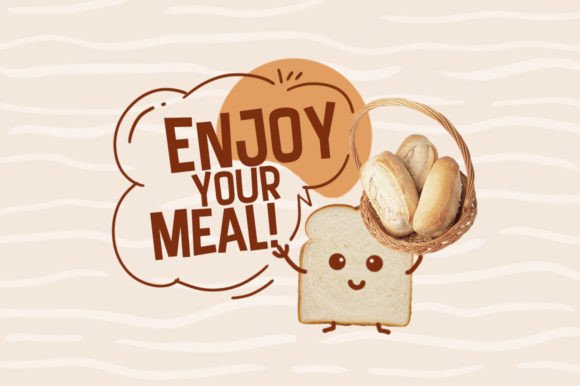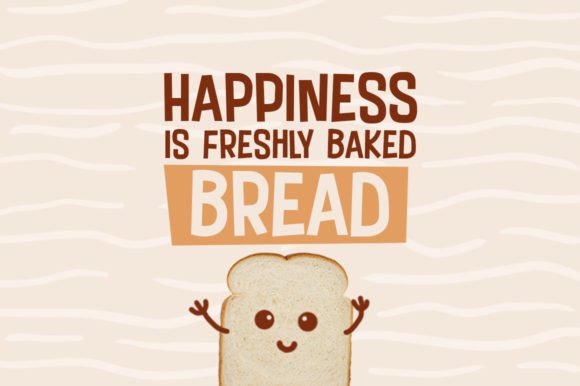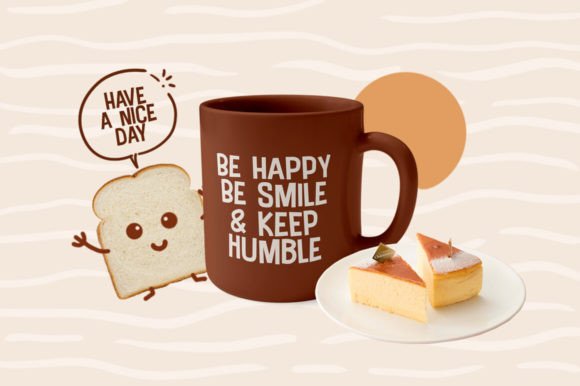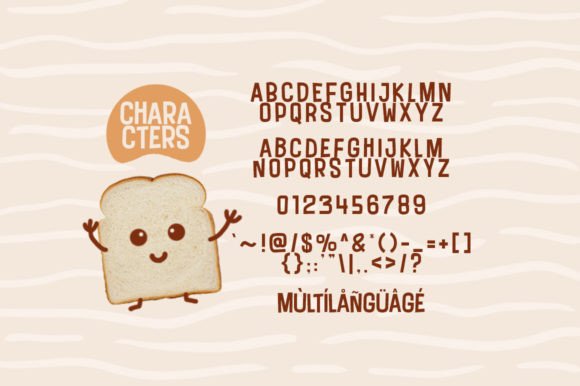
The Perfect Slice of Creativity: Introducing Bread Mate Font
Remember that moment when you’re brainstorming ideas for your next design project, and you just can’t seem to find the right font to tie everything together? It’s like searching for the perfect topping for your favorite sandwich – you know it’s out there, but you’re not quite sure what it is yet.
Well, put down the mustard and pick up your design software, because we’ve got the solution you’ve been looking for. Enter the Bread Mate Font, a modern and cute display font that’s perfect for posters, logos, magazines, book covers, banners, and many more! This amazing font is a game-changer for designers, offering endless possibilities for creating lovely designs that stand out from the crowd.
Bread Mate Font Key Features
- Unique Characteristics: Bread Mate Font features a unique blend of modern and rustic elements, making it ideal for creating distinctive and eye-catching designs.
Bread Mate Font Review
As a designer, I was excited to dive into the Bread Mate Font, and here’s my honest review.
- The Bread Mate Font has a unique, modern feel that’s perfect for branding and marketing materials.
- The font is highly legible, even at smaller sizes, making it ideal for digital use.
- The font family includes a range of weights and styles, giving designers plenty of options for customization.
- The font may not be the best choice for formal or traditional designs, as it has a slightly playful tone.
- The font family could benefit from additional language support, as it’s currently limited to Latin-based languages.
- The font’s italic and bold styles can sometimes feel inconsistent, which may require manual adjustment in some cases.
The Bread Mate Font is a solid addition to any designer’s toolkit, offering a unique and modern aesthetic. While it may have some limitations, its strengths make it a great choice for branding and marketing projects. With some additional language support and refinement to the italic and bold styles, this font could become a true favorite among designers.
Common Use Cases for Bread Mate Font
The Bread Mate Font is ideal for a variety of design projects, including:
- Marketing materials (brochures, flyers, etc.)
- Print design (business cards, letterheads, etc.)